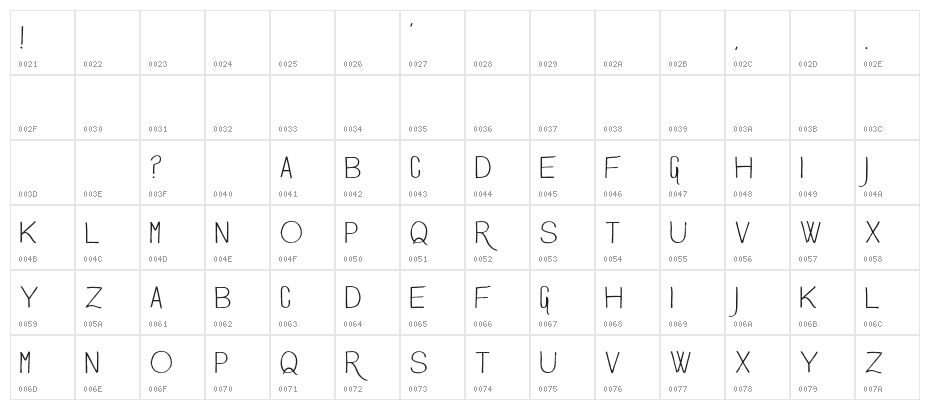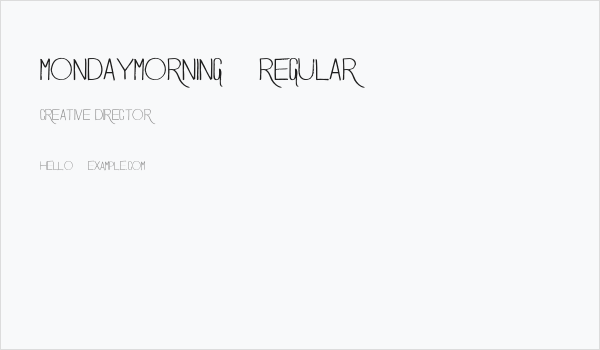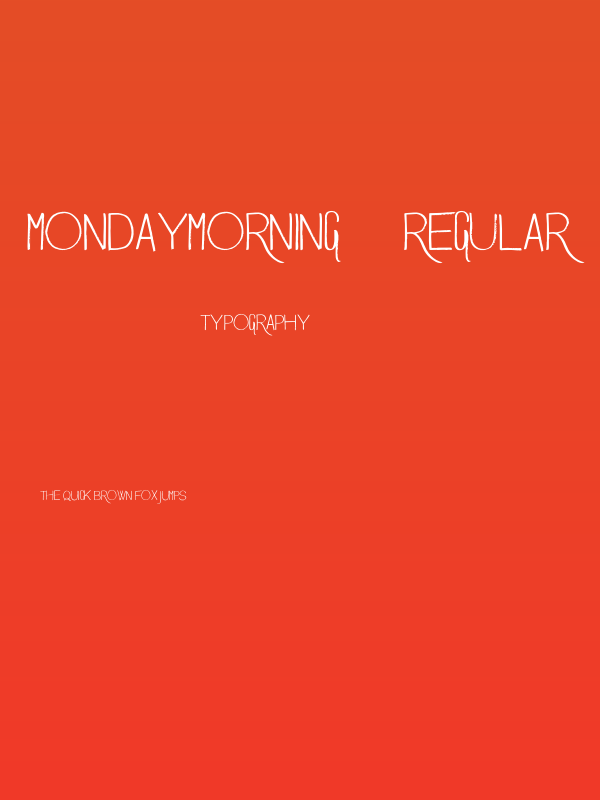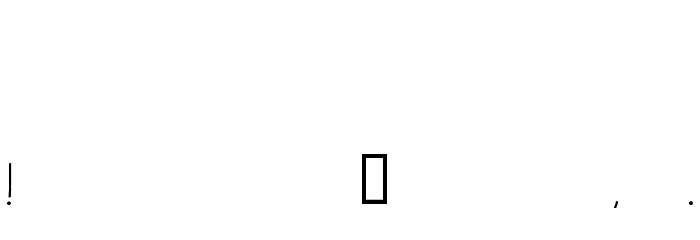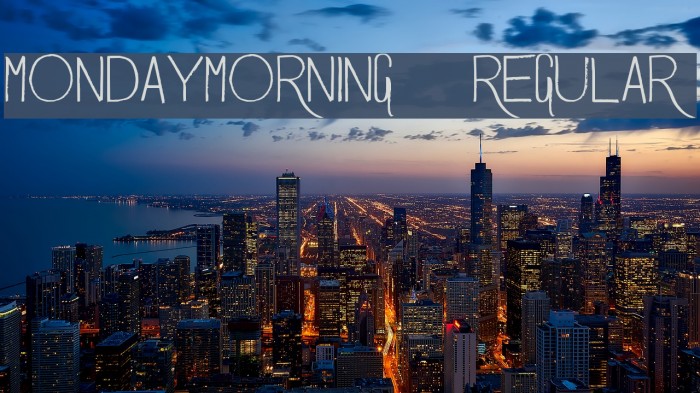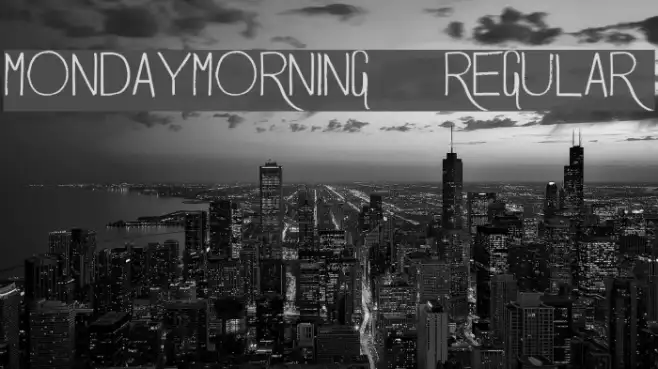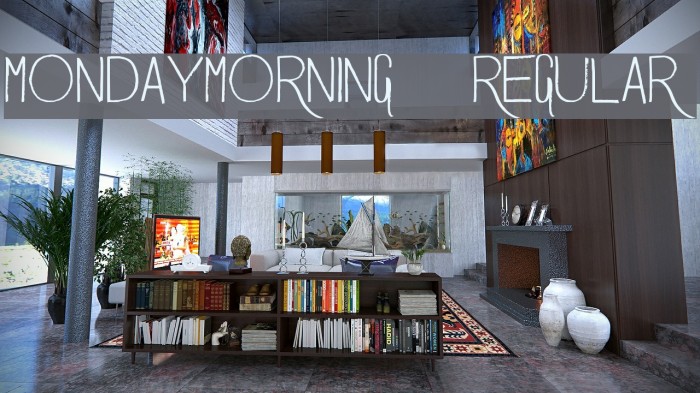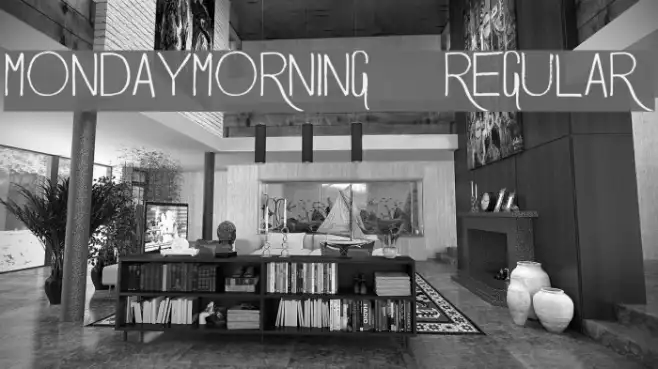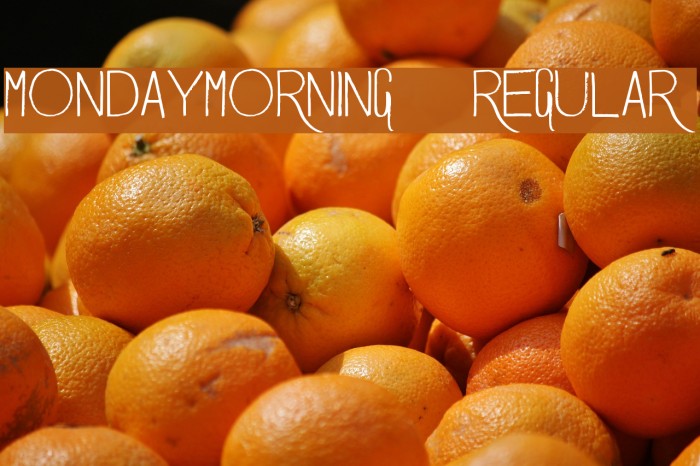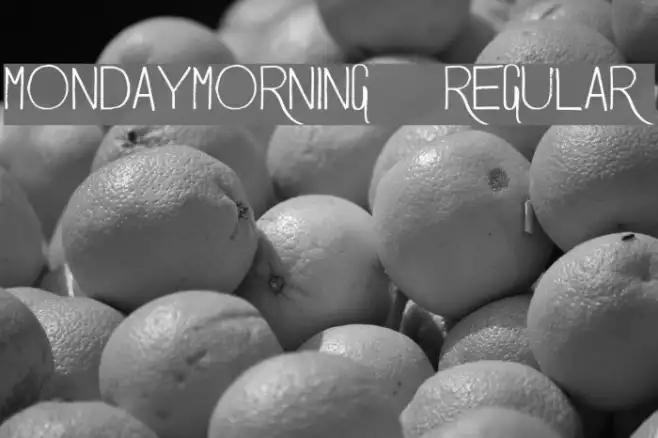
MondayMorning-Regular Font
MondayMorning-Regular Description
This font features a unique, hand-drawn style with elongated and slightly irregular strokes, giving it a whimsical and artistic appearance. The uppercase letters are tall and slender, with some characters exhibiting playful curves and extensions. The lowercase letters maintain a consistent style, complementing the uppercase with their own quirky flair. The numbers and special characters follow the same artistic theme, ensuring a cohesive look across all glyphs. This font's distinctive character makes it stand out, ideal for creative projects that require a touch of individuality.
| Proposed Projects | Ideal for artistic projects, children's book covers, creative posters, and unique branding materials. |